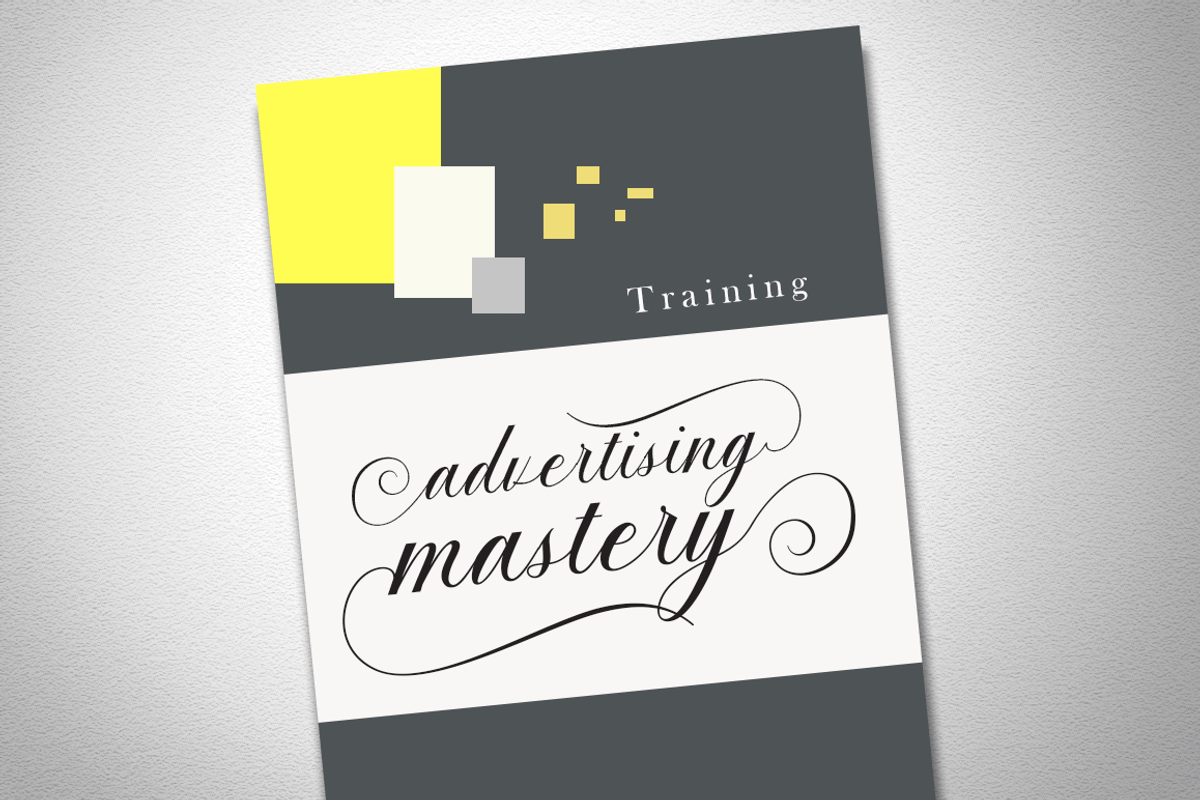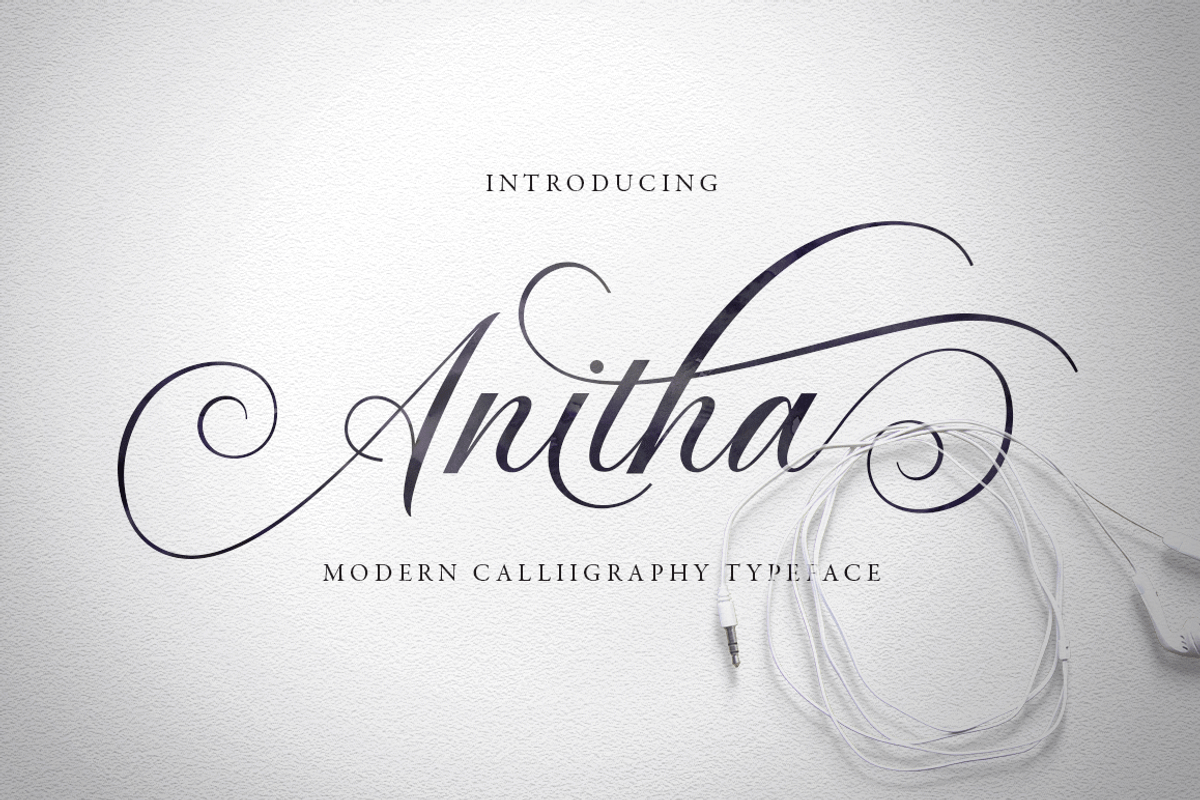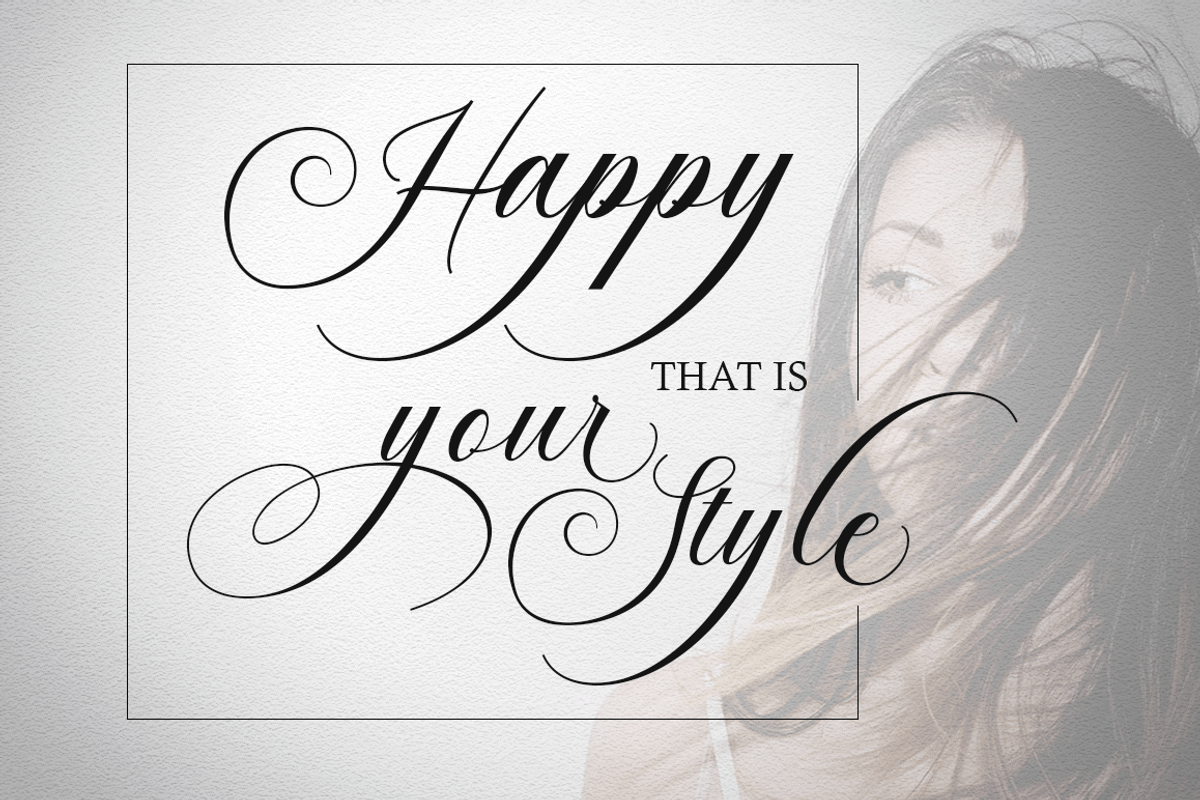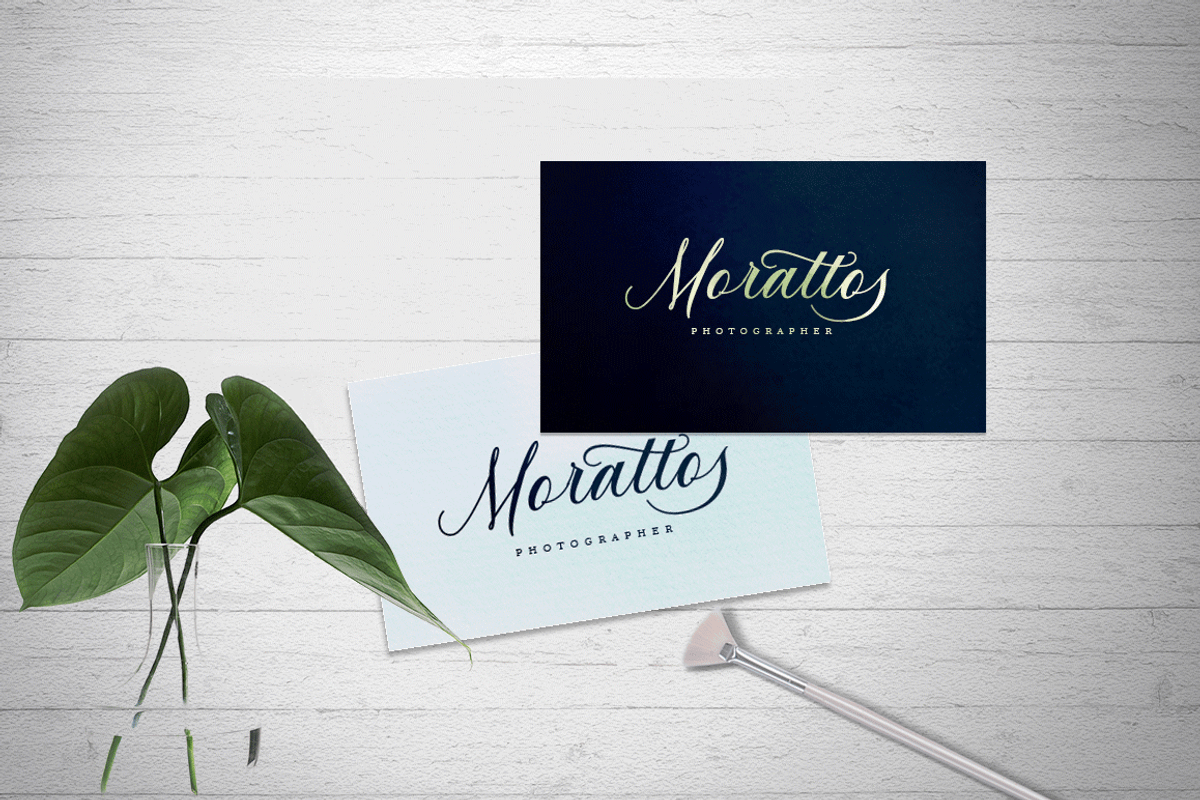
Anitha//Wedding Calligraphy Font
Anitha//Wedding Calligraphy Font by jorse is a font selected for branding, posters, packaging, typography.
- Anitha features 496 glyphs and alternate characters Include .
- including initial and terminal letters, alternates, ligatures and multiple language support..
- The Features of this fonts is; Standart ligatures Discretionary ligatures Swash Alternates Stylistic sets PUA Unicode (
Anitha//Wedding Calligraphy Font by jorse fits naturally into Branding, posters, packaging, typography.